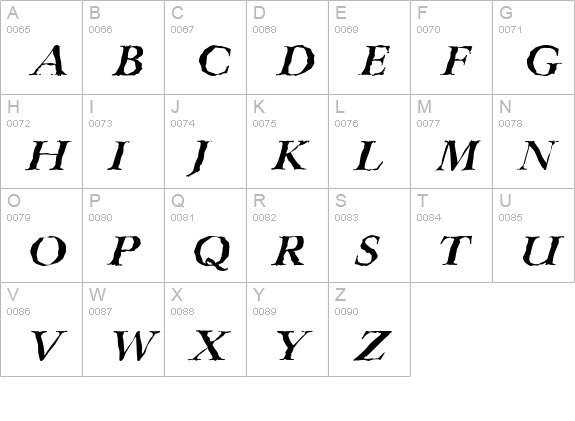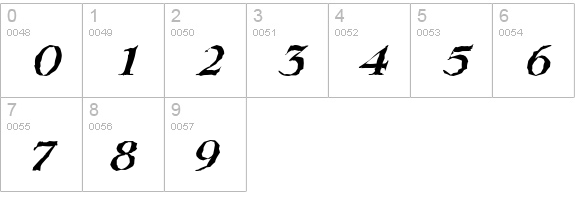
LingwoodRandom-BoldItalic Font Details
LingwoodRandom-BoldItalic is a stylish and versatile font that adds a touch of sophistication to any design project. Its bold and italicized appearance gives a modern and eye-catching aesthetic, making it perfect for headlines, titles, and other prominent text. The unique characteristics of LingwoodRandom-BoldItalic make it a standout choice for those looking to make a statement with their typography. Best of all, LingwoodRandom-BoldItalic is available for free download at FontsMarket.com. This means you can add this striking font to your collection without any cost, making it a valuable asset for designers, creatives, and anyone looking to elevate their projects with a touch of elegance. Don't miss out on the opportunity to enhance your designs with the distinctive flair of LingwoodRandom-BoldItalic - download it today and see the difference it can make!